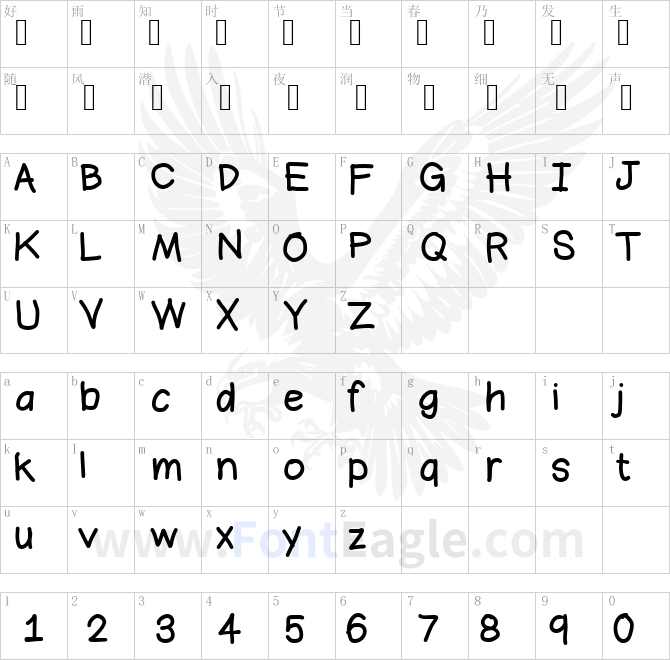
Bromine is a great font, widely used in graphic design, single-page menu design, poster design and other fields, and is deeply loved by designers.Bromine download.